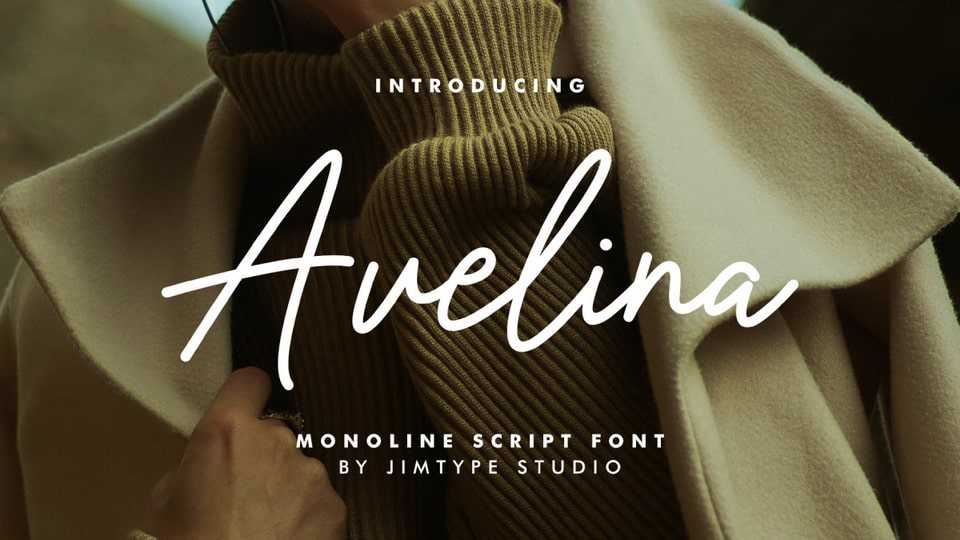
Download Avelina Script font, a gorgeous typeface designed to enhance your projects. Its elegant, flowing style adds a touch of sophistication to every creation.